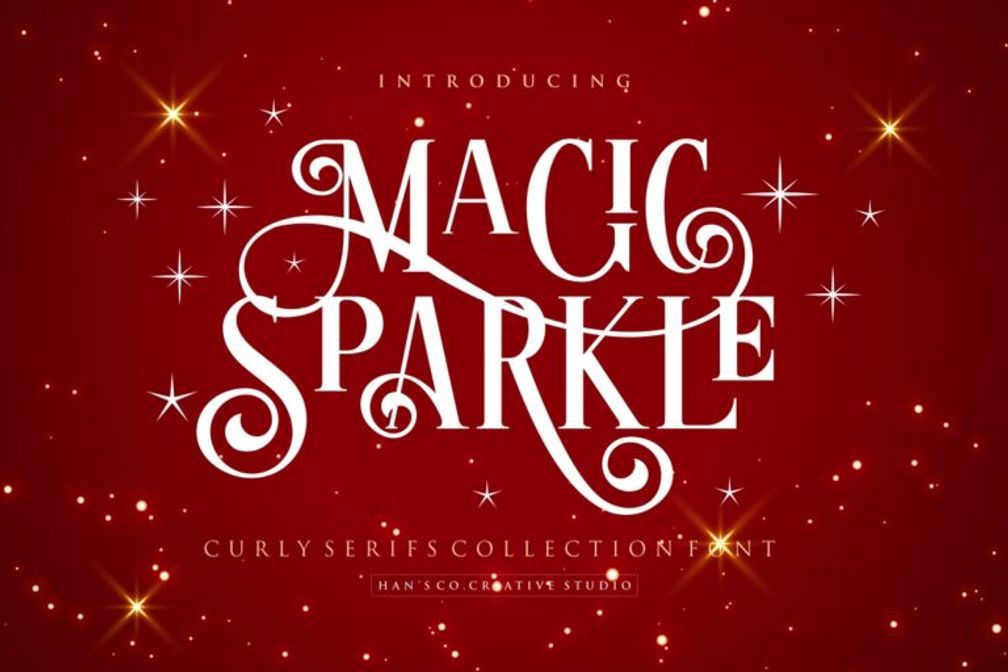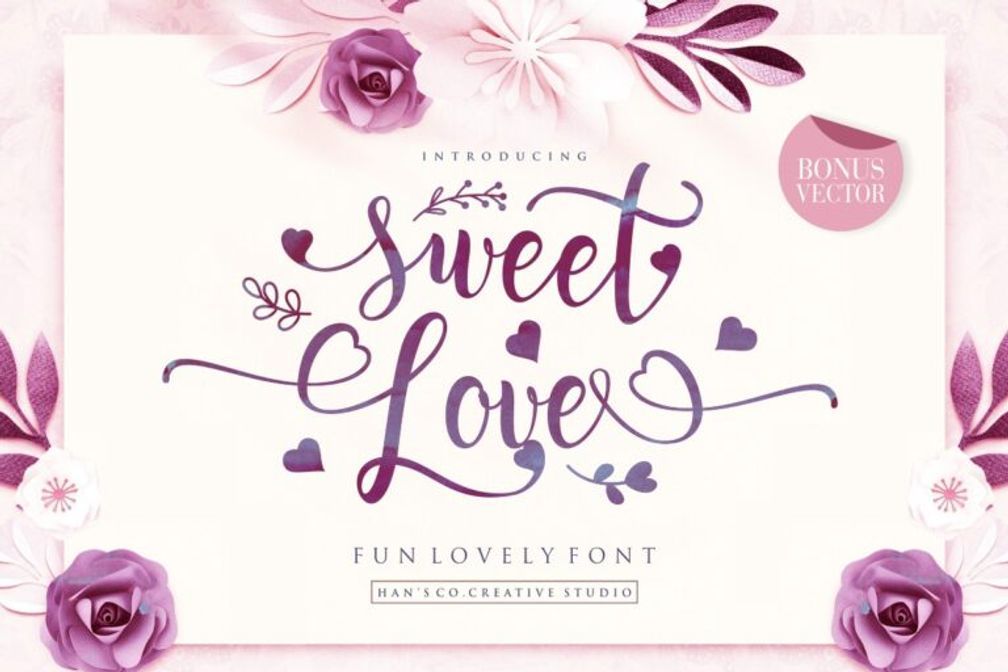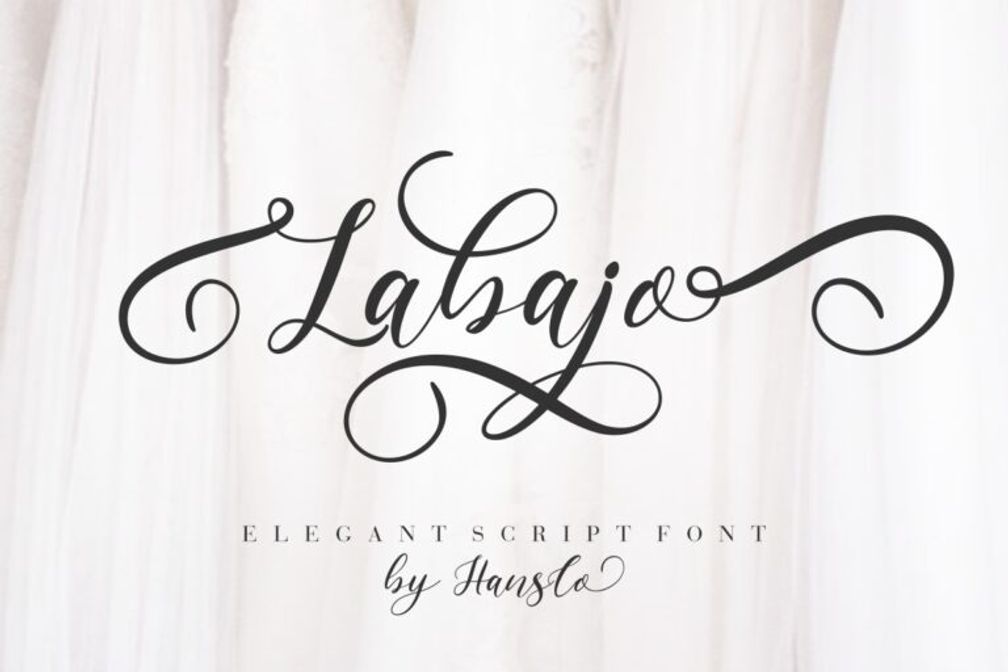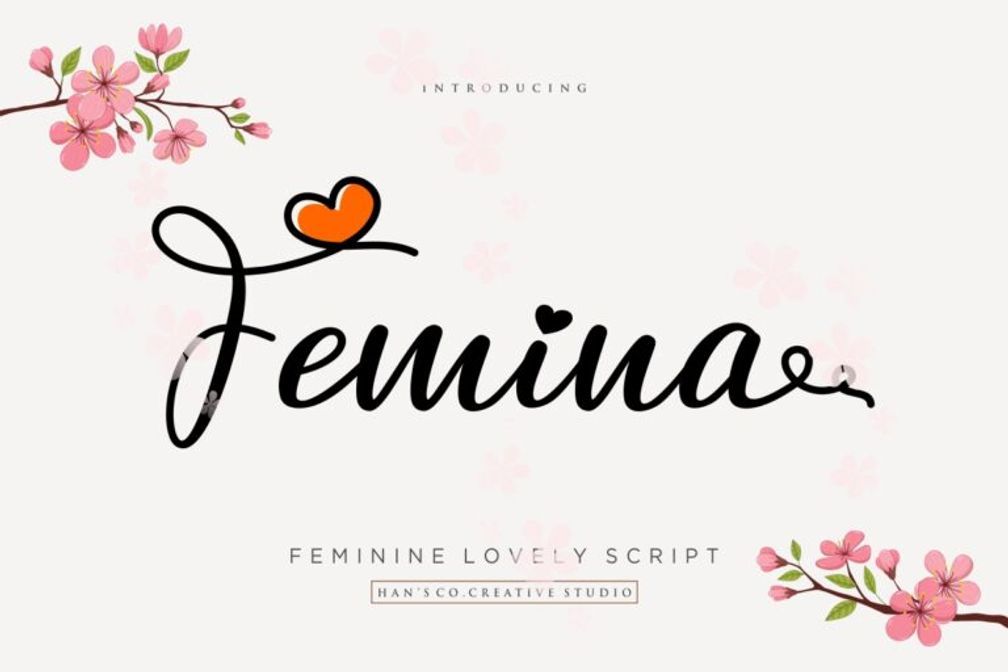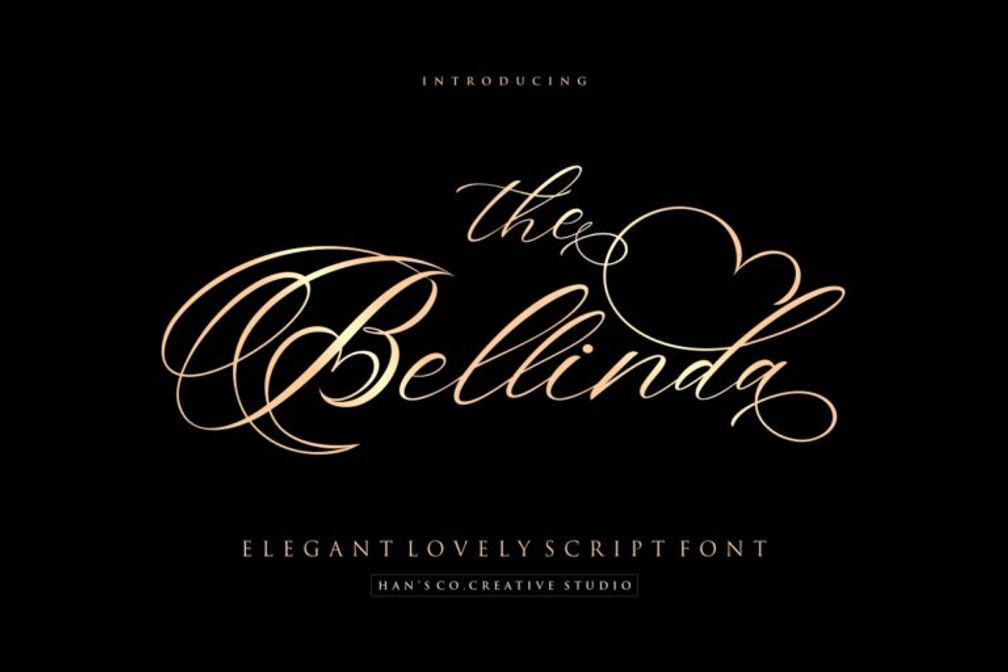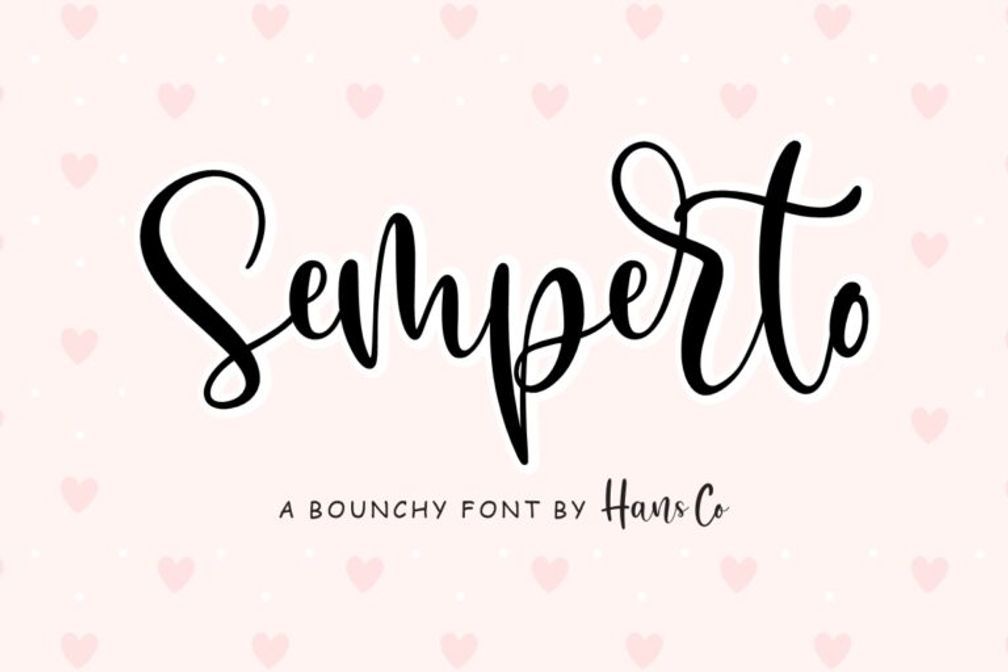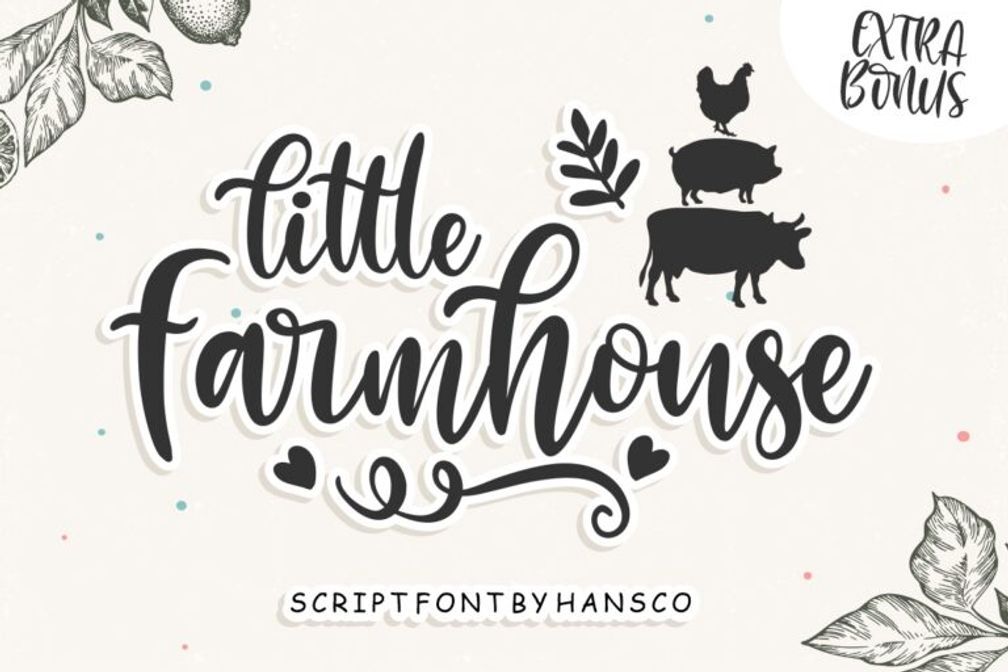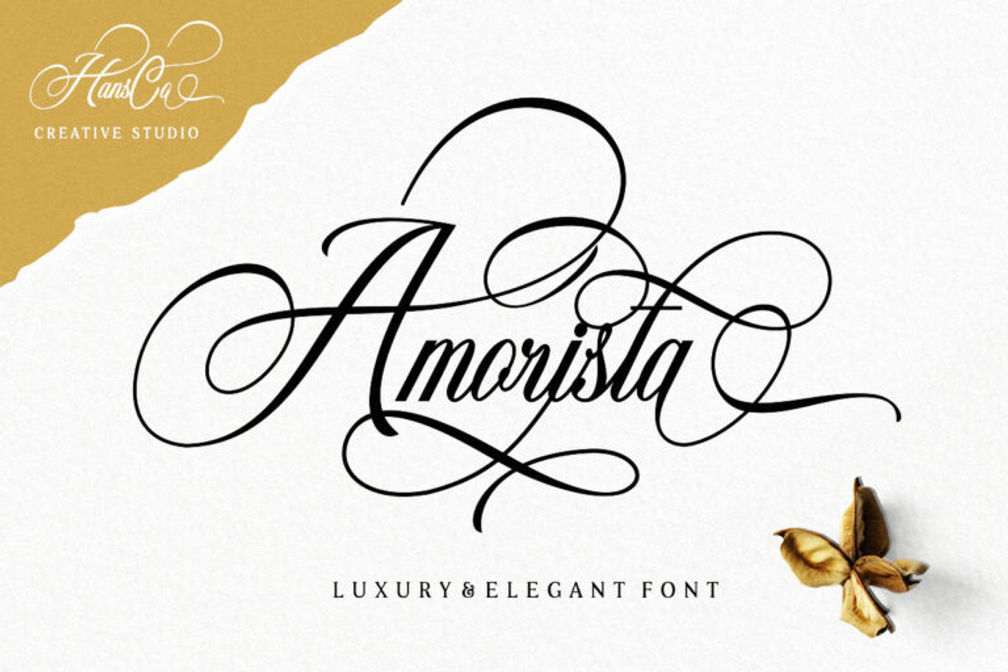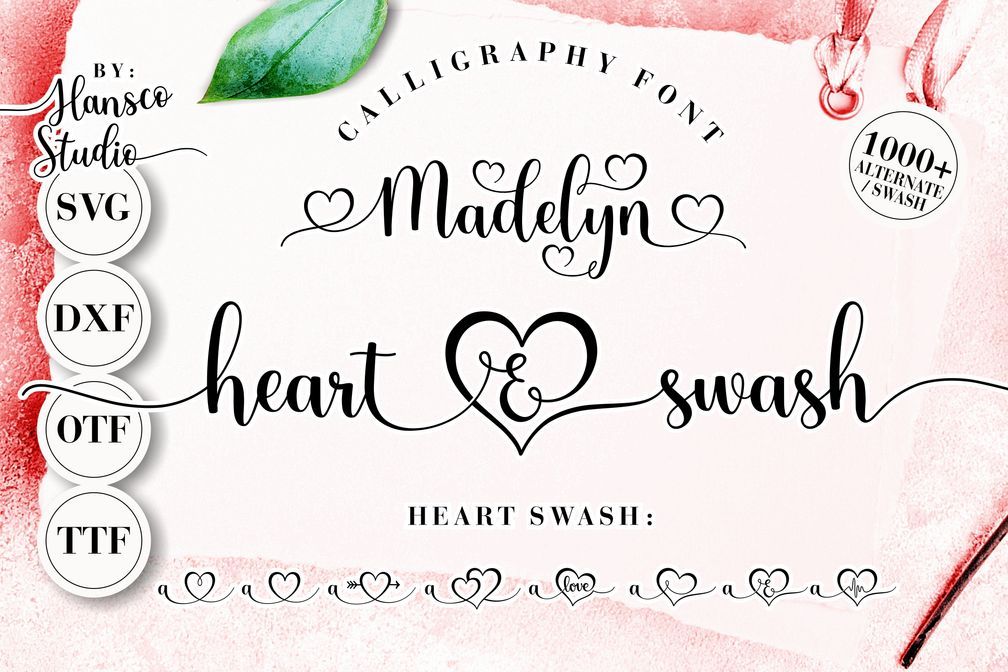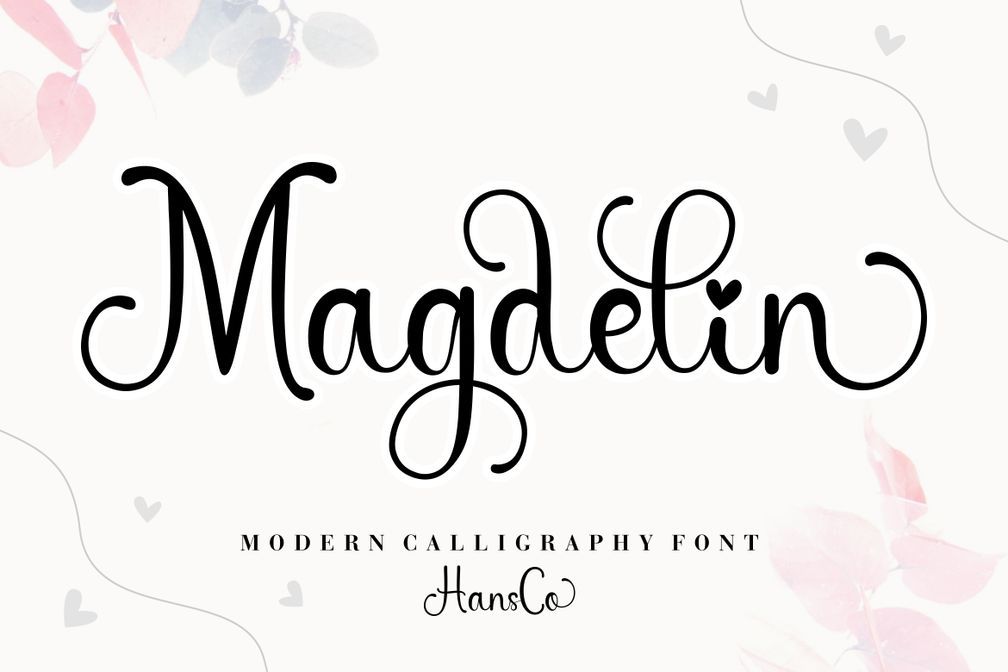
20 Best Romantic Font Styles for Elegant Design Usages
Connection often begins long before a single word is processed. What we see shapes our thoughts, feelings, and actions every day. A prime example is a romantic font, which expresses warmth before the words are read. With so many choices available, which ones are best for your needs? Let’s dive in!
Key Takeaways
• Choose a romantic font that matches your project to create a warm, elegant, and eye-catching design.
• Soft script fonts work best for weddings and invitations, while modern styles suit branding and packaging.
20 Gorgeous Romantic Font Downloads for Stunning Designs
In the following section, we’ve handpicked twenty of the best romantic calligraphy font collections, each standing out for its charm and stunning style. Pick the one that best suits your project’s design!
1. Love Line
Love Line captures the beauty of a handwritten love note. Its thin flowing strokes feel delicate and sincere, making it a lovely option for wedding invitations, heartfelt quotes, or elegant stationery.
2. Lover
If you want something stylish and modern, Lover is a strong choice. The smooth script curves give logos, packaging, and fashion branding a polished romantic look without feeling overly decorative.
3. Love Sparks
Bright, cheerful, and full of charm, Love Sparks brings joyful energy to any design. It works especially well for Valentine promotions, greeting cards, or fun social media graphics.
4. Vatins Lubis
Vatins Lubis feels like a premium handwritten signature. It adds a personal yet luxurious touch to boutique logos, beauty brands, wedding details, and upscale packaging.
5. Via Vallens
Elegant from the first glance, Viavallens offers graceful connections and refined letterforms. Use it when your project needs a timeless and sophisticated romantic mood.
6. Merisa
Merisa is a romantic heart font that has a gentle feminine style that feels fresh and modern. It is perfect for planners, blog headers, skincare labels, and decorative quote prints.
7. Craft Lovers
Warm and creative, Craft Lovers font looks naturally handmade. This font suits DIY products, handmade packaging, craft businesses, and any design that needs a friendly personality.
8. Angelove
Angelove feels dreamy and soft, almost like words floating across the page. It is ideal for wedding signs, anniversary cards, or elegant boutique branding.
9. Magic Love
With expressive curves and playful movement, Magic Love turns simple text into something memorable. It shines on posters, event invites, and celebration-themed graphics.
10. Magic Sparkle
Need a glamorous romantic font? Magic Sparkle adds decorative beauty and a festive mood. It works wonderfully for beauty promotions, party themes, and luxurious branding pieces.
11. Sweet Love
Sweet Love lives up to its name with adorable and cheerful lettering. You can use it for bakery branding, gift tags, stickers, or cute card designs that need warmth.
12. Labajo
12 Labajo
Labajo brings stronger energy than softer script fonts. Its bold handwritten strokes are perfect for apparel branding, product labels, posters, or modern logos.
13. Femina
Clean, graceful, and confident, Femina is the new romantics font that’s designed with feminine elegance in mind. It fits beauty brands, magazine covers, invitations, and stylish packaging.
14. Bellinda
Bellinda offers classic calligraphy charm with a refined finish. It feels luxurious on certificates, wedding stationery, and premium branding materials.
15. Semperto
Semperto balances boldness and elegance beautifully. Choose it for menus, advertisements, logos, or branding projects that need a stylish statement.
16. Little Farmhouse
Cozy and rustic, Little Farmhouse creates a welcoming handmade feeling. It is perfect for home décor brands, seasonal crafts, farmhouse signs, and lifestyle products.
17. Amorista
Standing as a graceful romantic font, Amorista feels made for love-themed designs. It looks stunning on invitation suites, perfume labels, feminine branding, and wedding logos.
18. Madelyn Heart
Madelyn Heart brings a playful sweetness with decorative flair. It works especially well for Valentine designs, planners, quote graphics, and charming gift packaging.